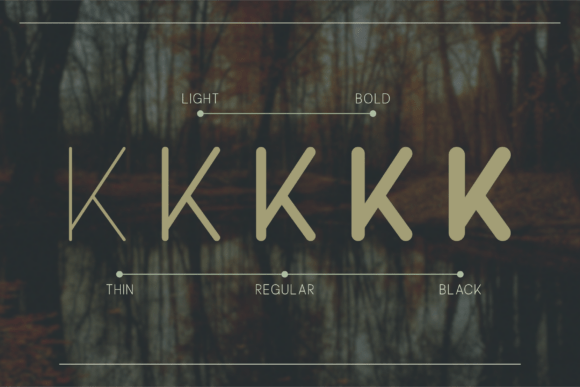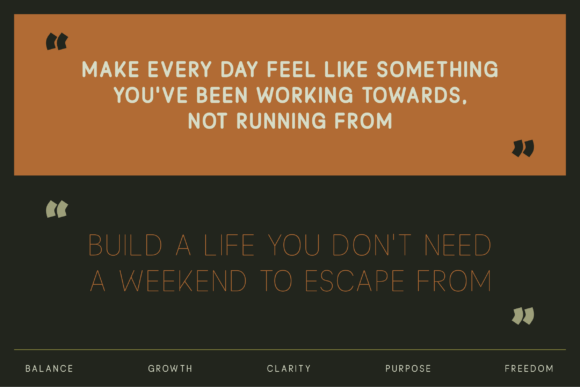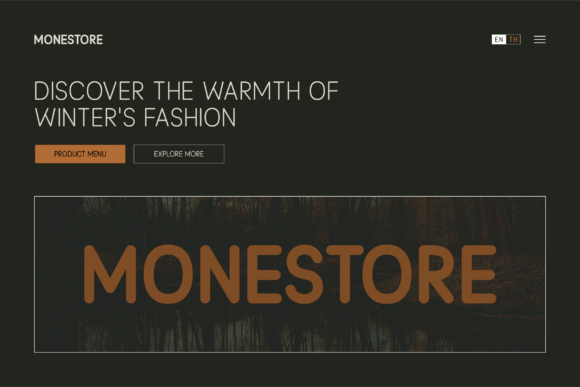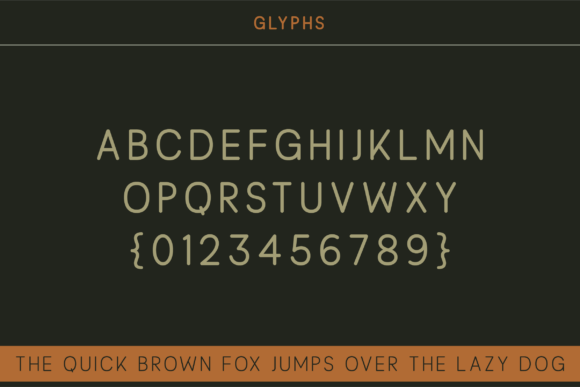
I still remember the frustration of working on a project, hours spent crafting the perfect design, only to realize that the font I chose was completely off. The client wanted something modern, yet friendly; bold, yet approachable. It was a font that would make their brand stand out, but also convey a sense of warmth and approachability. I’ve been there, and I’m sure many of you have too. That’s when I discovered Competico Rounded, a game-changing font family that has become a staple in my design toolkit.
What is Competico Rounded?
Competico Rounded is a modern all-caps sans serif font family designed to bring clarity, warmth, and bold personality to your creative projects. With its soft-rounded edges and sleek, geometric construction, this font is both highly legible and aesthetically balanced across five versatile weights: Thin, Light, Regular, Bold, and Black.
- ✨ Versatility: Competico Rounded comes in five weights, making it perfect for a wide range of design applications, from subtle text to bold headlines.
- ✅ Legibility: The soft-rounded edges and geometric construction make it highly legible, even at small sizes.
- ✅ Aesthetic balance: The font family is carefully crafted to provide a polished, confident look that adapts beautifully to different design contexts.
- ✨ OpenType features: Competico Rounded supports a range of OpenType features, including stylistic alternates and glyphs, which can add an extra layer of creativity to your designs.
⚠️ While Competico Rounded is an excellent font family, it’s worth noting that it’s an all-caps font, which may limit its use in certain design contexts where lowercase letters are essential. Additionally, some users may find the rounded edges too soft or rounded for their taste.
🤔 Another potential limitation is that Competico Rounded may not be the best choice for body text, as it’s designed primarily for headlines and display text. However, this doesn’t detract from its overall versatility and usefulness.
Competico Rounded was designed with the goal of creating a font family that would bring clarity, warmth, and bold personality to creative projects. The designer, inspired by the need for a modern, yet approachable font, set out to craft a font family that would be both highly legible and aesthetically balanced. The result is a versatile font family that adapts beautifully to different design contexts.
| What is Competico Rounded? | Competico Rounded is a modern all-caps sans serif font family designed to bring clarity, warmth, and bold personality to creative projects. |
| What weights does Competico Rounded come in? | Competico Rounded comes in five versatile weights: Thin, Light, Regular, Bold, and Black. |
| Can I use Competico Rounded for body text? | While Competico Rounded is designed primarily for headlines and display text, it can be used for body text in certain design contexts. However, it’s recommended to use a font specifically designed for body text for optimal readability. |
| Does Competico Rounded support OpenType features? | Yes, Competico Rounded supports a range of OpenType features, including stylistic alternates and glyphs. |